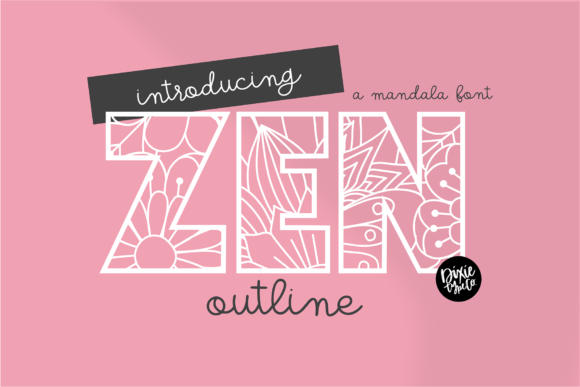
Introducing Zen Font, the ultimate choice for those seeking the best font for circle monogram designs. Created by dixietypeco, this captivating display font is here to elevate your crafting projects to new heights. With its mandala-themed characters, Zen Font adds a touch of elegance and personalization to any creative endeavor.
Are you tired of using the same old fonts that lack originality? Zen Font is the solution you've been waiting for. Its unique and eye-catching design will make your projects stand out from the crowd. Whether you're designing a logo, creating invitations, or personalizing gifts, Zen Font will leave a lasting impression on your audience.
Crafters, rejoice! Zen Font is the perfect companion for all your crafting projects. Its intricate and mesmerizing characters will add a touch of magic to your scrapbooking, vinyl cutting, or card-making ventures. Let your creativity flow as Zen Font effortlessly brings your ideas to life.
But Zen Font is not just about aesthetics; it's also about versatility and practicality. With its extensive range of characters, this font allows you to unleash your imagination and experiment with different styles. From bold and impactful to delicate and graceful, Zen Font adapts to your vision, empowering you to create stunning designs with ease.
Embrace the power of Zen Font and let your creativity soar. Join the community of satisfied users who have already experienced the magic of this font. Transform your projects into works of art with the captivating and personalized touch that only Zen Font can provide.